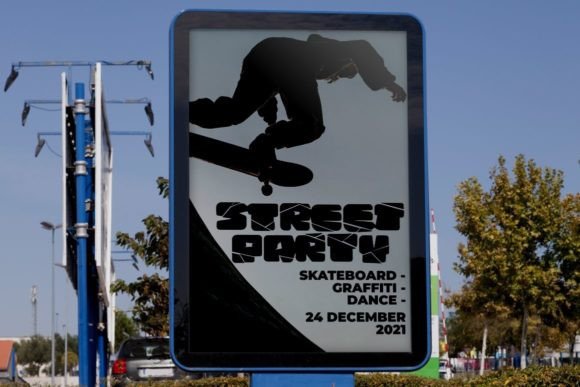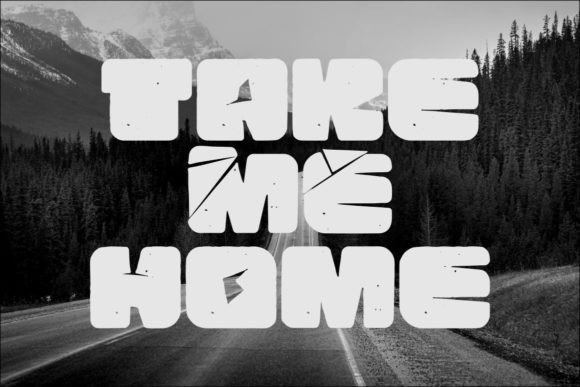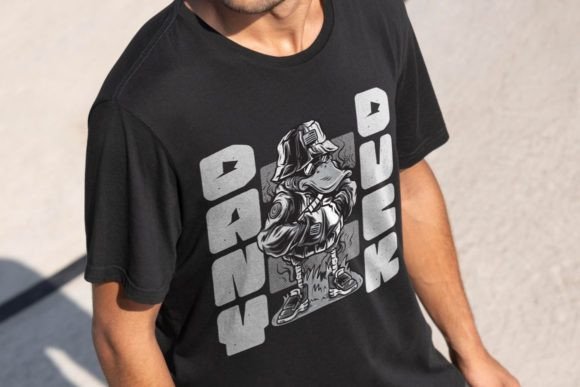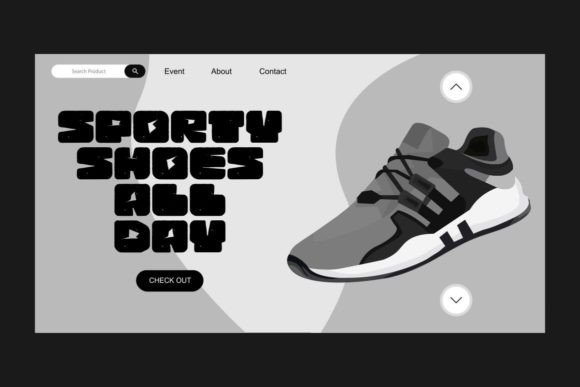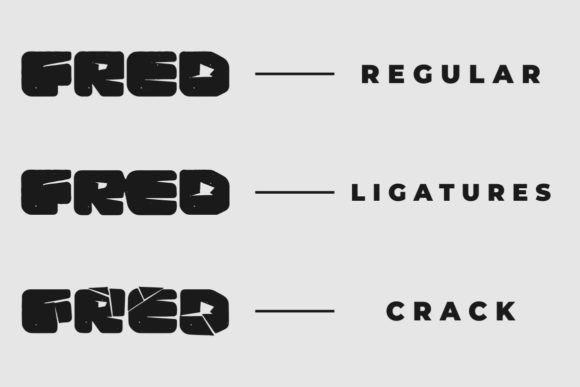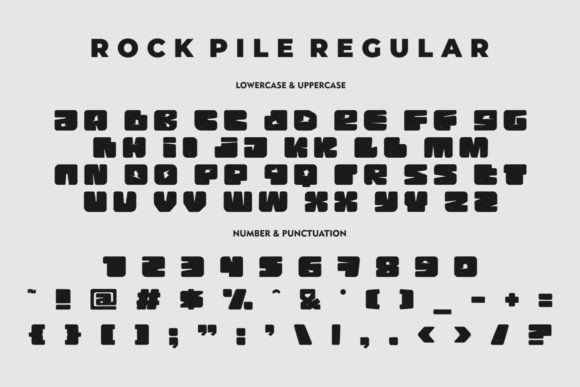
Introduction to Rock Pile Font Font
Fonts play a crucial role in design, and the Rock Pile Font font is a typeface that brings both character and versatility to any project. Whether you’re working on a branding project, a website, or a print design, the Rock Pile Font font offers a unique style that can elevate your work.
Rock Pile is a bold and assertive display font.
Contemporary and fresh, it is perfect for any design you wish to create Add it to your creative projects and make them outstanding.
Key Features of Rock Pile Font Font
Why Choose Rock Pile Font Font?
The Rock Pile Font font is more than just a typeface – it’s a design tool that helps you communicate your message with style and clarity. Its unique character set and versatile design make it suitable for a wide range of applications, from elegant invitations to bold headlines.
With its carefully crafted letterforms and balanced proportions, the Rock Pile Font font ensures readability and visual appeal across all mediums.
What makes Rock Pile Font font special?
The Rock Pile Font font stands out with its unique design, exceptional readability, and versatility across various design applications.